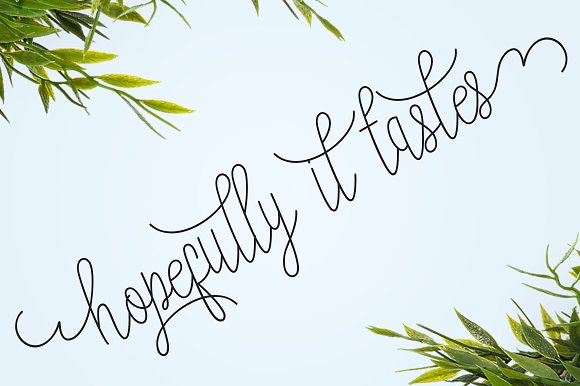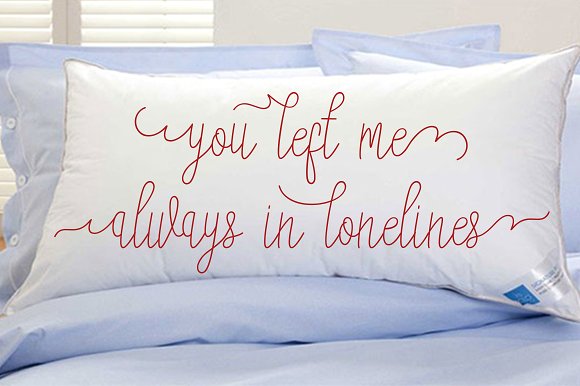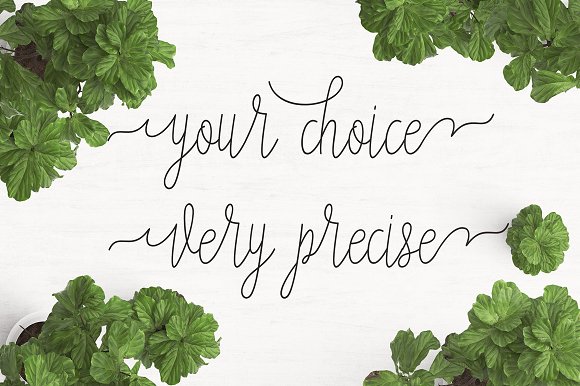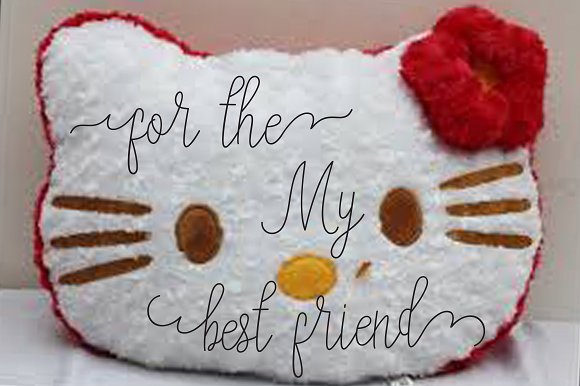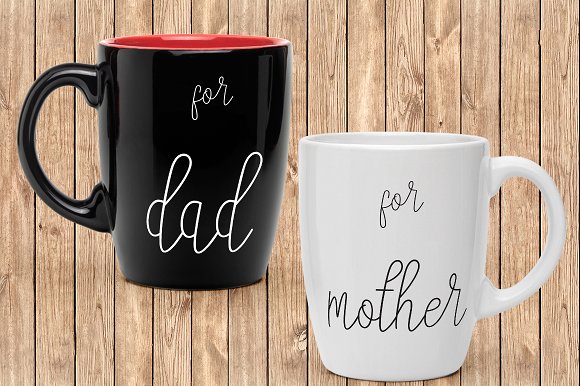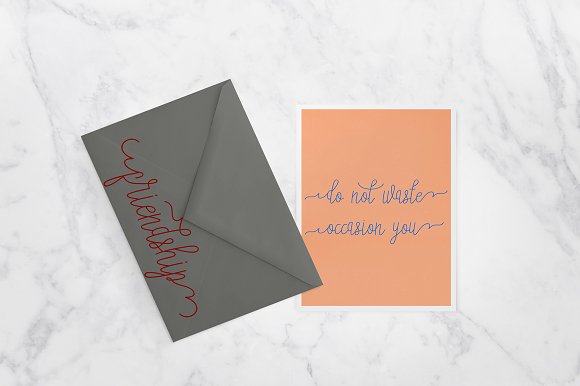
Introduction to Mandar Font Font
Fonts play a crucial role in design, and the Mandar Font font is a typeface that brings both character and versatility to any project. Whether you’re working on a branding project, a website, or a print design, the Mandar Font font offers a unique style that can elevate your work.
Mandar is a handwritten script font by Jhoen Studios.
This stunning font is completely drawn by hand and contains many alternate characters with stunning swashes The font is PUA encoded.
The Mandar Font font is more than just a typeface – it’s a design tool that helps you communicate your message with style and clarity. Its unique character set and versatile design make it suitable for a wide range of applications, from elegant invitations to bold headlines.
With its carefully crafted letterforms and balanced proportions, the Mandar Font font ensures readability and visual appeal across all mediums.
The Mandar Font font stands out with its unique design, exceptional readability, and versatility across various design applications.